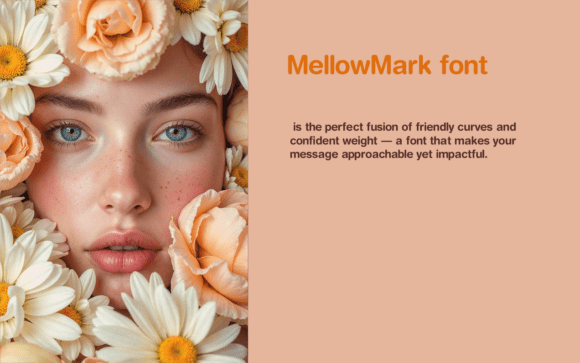
Introduction to Mellow Mark Font
Say hello to a bold personality with a soft edge.
Mellow Mark is the perfect fusion of friendly curves and confident weight โ€” a font that makes your message approachable yet impactful Whether youโ€™re designing for lifestyle brands, tech startups, childrenโ€™s content, or bold packaging, this typeface adds warmth and modernity to any project.
Key Features of Mellow Mark Font
Why Choose Mellow Mark Font?
Mellow Mark Font offers exceptional quality and versatility, making it a valuable addition to your design toolkit. Whether you’re creating for personal projects or commercial use, Mellow Mark Font delivers professional results.